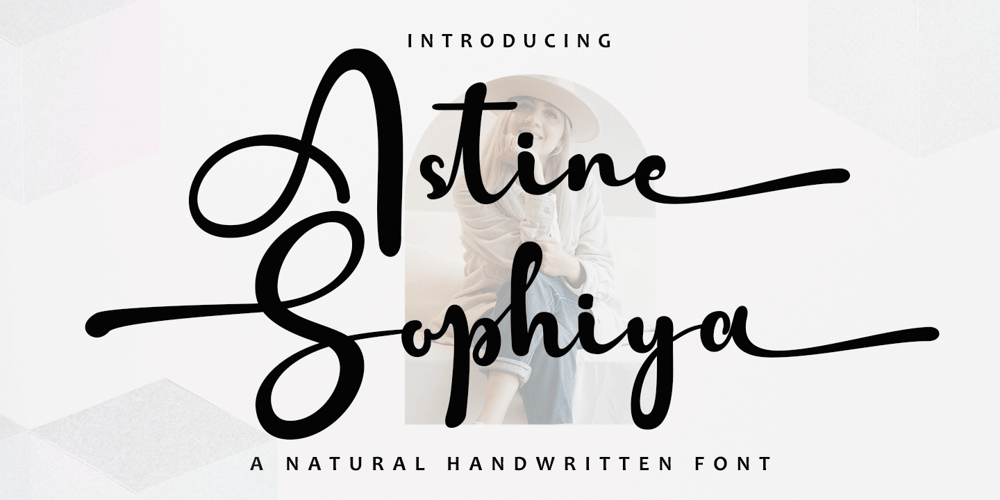
Astine Sophiya Script Font Family was designed by Zaki Muhammad and published by madjack.font. Astine Sophiya Script contains 2 styles and family package options. Astine Sophiya Script, a handwritten script font inspired by handwriting with an aesthetic touch.Aliya Script is flexible enough for web and print and can be used in a variety of projects such as stationery, packaging, apparel, wedding stationery, prints, quotes, social media graphics, planners, greeting cards, logos, branding and much more.The script includes a set of uppercase characters, numbers, symbols, two sets of lowercase letters, and ligatures.Complete Set of standard alphabet and punctuation marks Additional set of brushed lowercase endings Handwritten ligature.Thank you so much for checking out my shop!